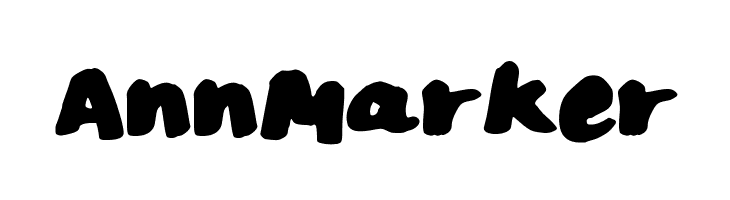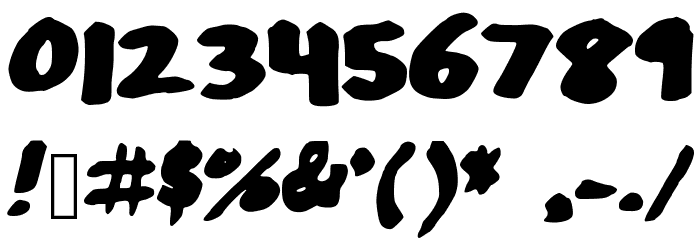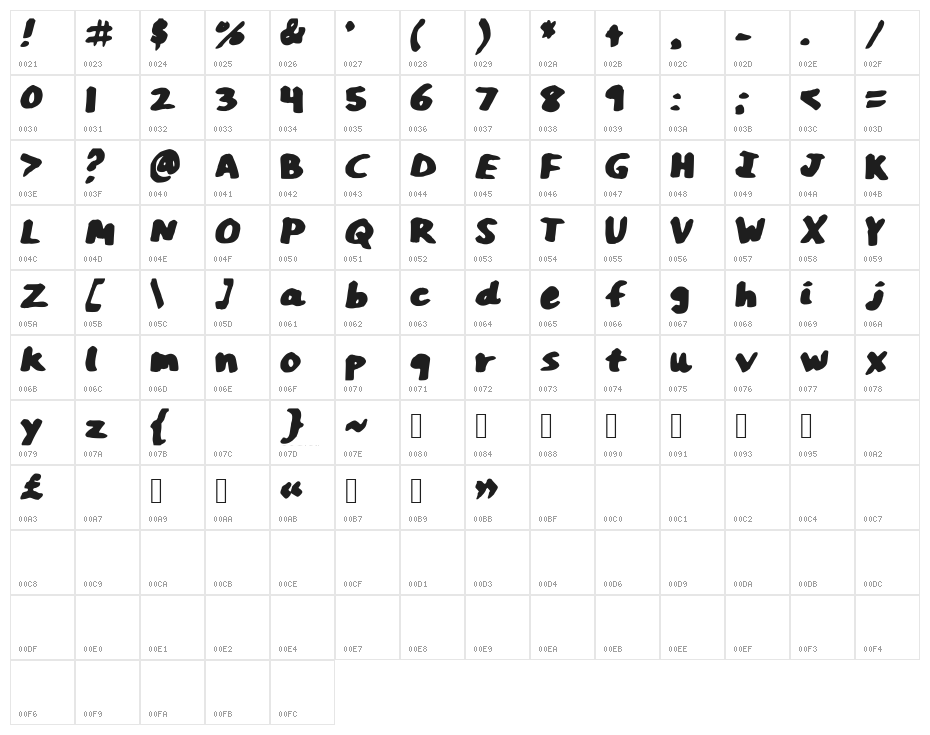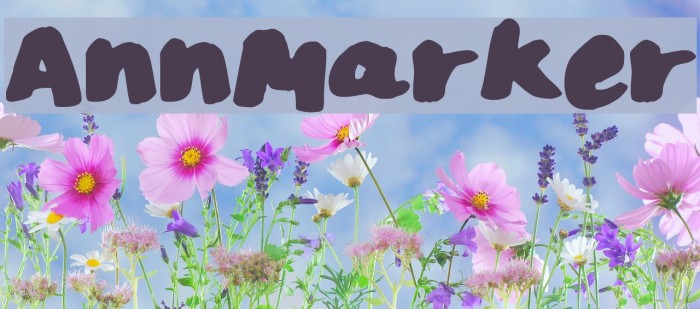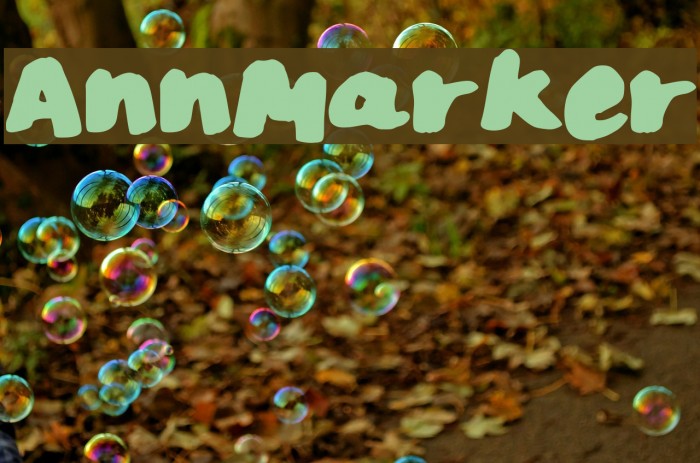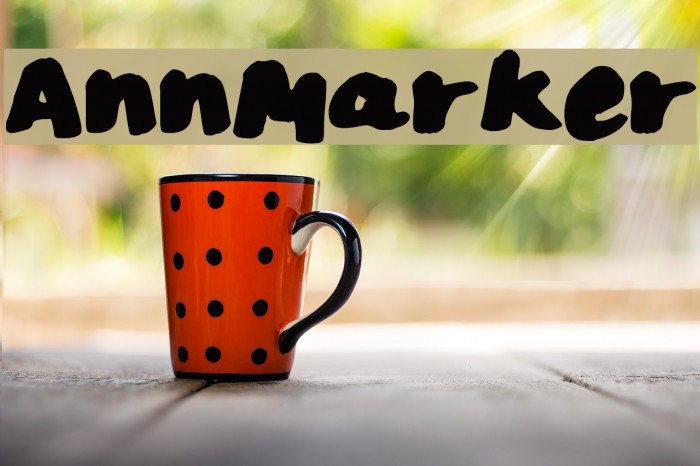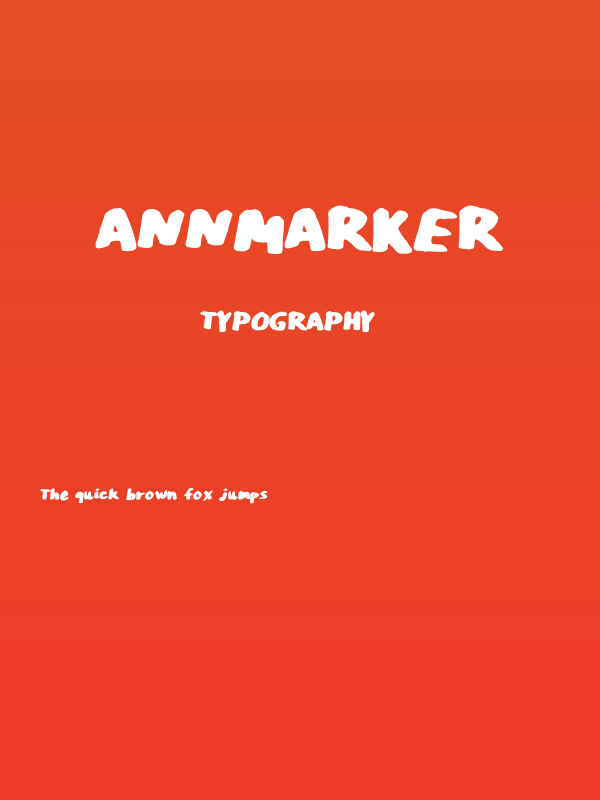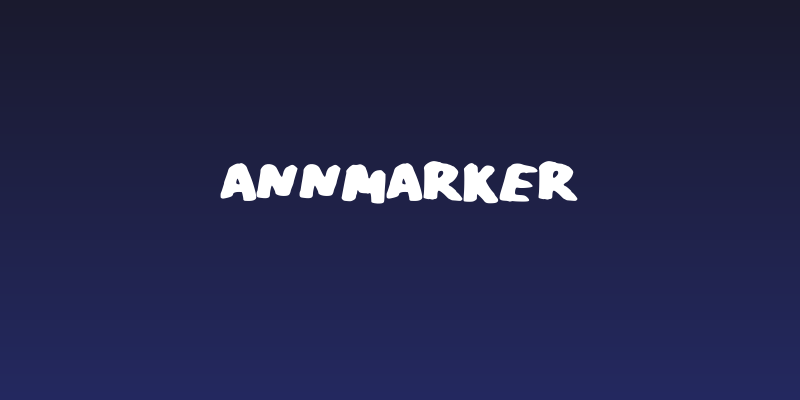
AnnMarker Font
AnnMarker Description
This font features a bold and playful style with thick, rounded strokes that give it a lively and energetic appearance. The characters are slightly irregular, adding a hand-drawn feel that is both approachable and informal. The uppercase and lowercase letters maintain a consistent weight, while the numerals and special characters are equally bold and expressive. This font's design is reminiscent of marker or brush lettering, making it ideal for projects that require a personal touch or a sense of spontaneity.
| Overall Style | Playful, Casual |
| Proposed Projects | Ideal for children's book covers, playful branding, casual posters, and creative social media graphics. |